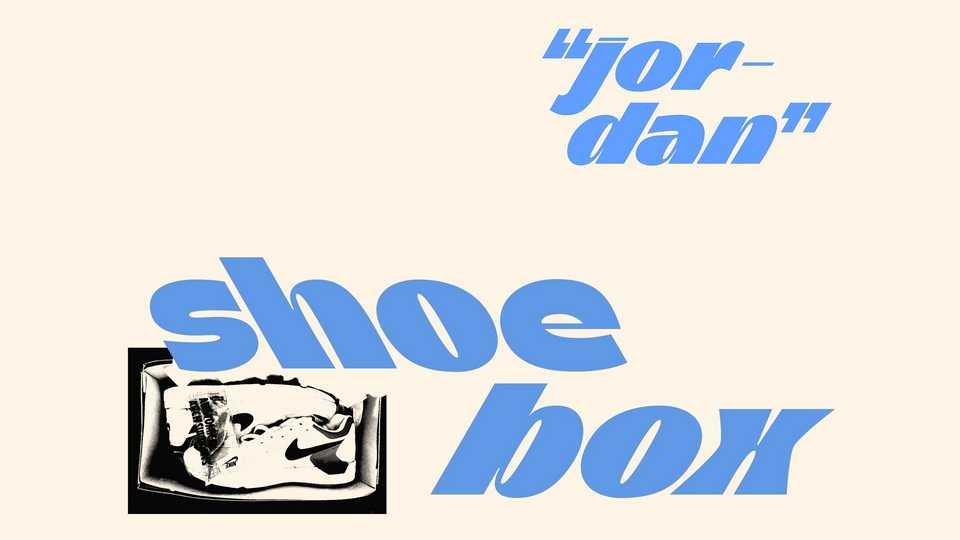
Download Shoebox font, a playful and dynamic display typeface in two italics inspired by Mac Miller’s Nikes on My Feet. The ideological image of Shoebox was complemented by a visual one – slanted stripes, a recognizable part of the Off-White style, and the image of sneakers, the favorite shoes of sneakerheads
Designer: Ekaterina Vakhrusheva